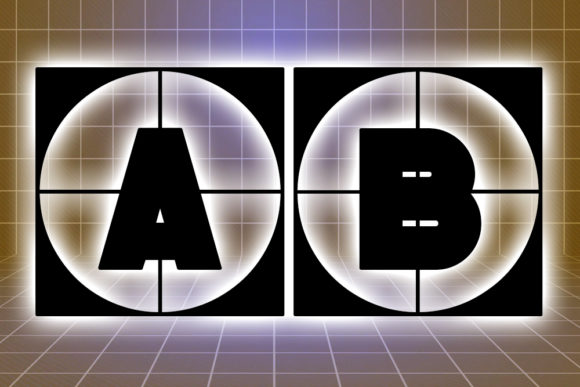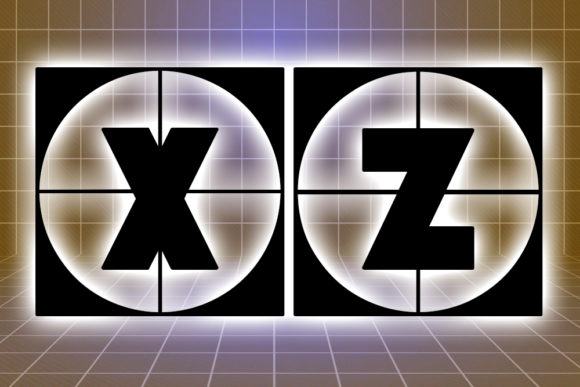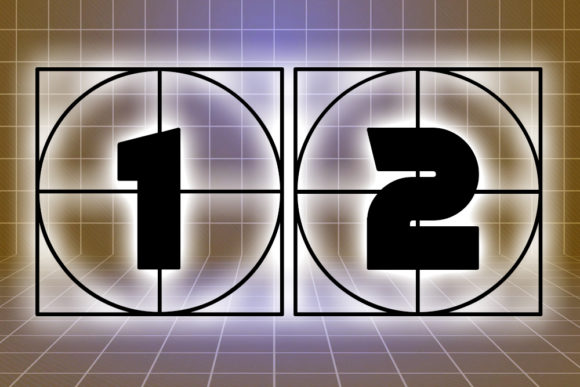
The Perfect Grid: Unleashing Creativity with Griddy Blocks Font
Have you ever stared at a blank page, waiting for that spark of creativity to strike? For many designers, it’s that moment of pure inspiration that sets their imagination ablaze. For us, it’s the thrill of experimenting with new fonts, colors, and layouts. And sometimes, it’s the simplest elements that make all the difference.
Enter Griddy Blocks Font, a stylish and modern typographic gem that brings a touch of sophistication to any design. This grid-based font is designed to elevate your print, t-shirt, or banner game, adding a unique visual appeal that’s sure to turn heads. As a valuable resource for designers, Griddy Blocks Font offers endless possibilities for creative expression, allowing you to craft distinctive and engaging visuals that leave a lasting impression.
Griddy Blocks Font Key Features
- Unique Characteristic: Griddy Blocks Font is a geometric sans-serif font with a unique grid-based design, making it ideal for digital displays and visualizations.
Griddy Blocks Font Review
As a designer, I’ve had the chance to work with the Griddy Blocks Font, and here’s my honest review.
- The font’s unique block-like design is visually striking and adds a modern touch to any design project.
- It’s highly customizable, allowing you to adjust the block sizes, colors, and spacing to fit your specific needs.
- The font is suitable for a wide range of applications, from digital interfaces to print materials.
- The font’s complexity can make it challenging to work with, especially for designers who are new to font customization.
- The block design can be overwhelming in certain contexts, making it difficult to read or understand the content.
- The font’s versatility comes at the cost of consistency, as different block sizes and colors can create a disjointed look.
Overall, I think the Griddy Blocks Font is a solid choice for designers who want to add a modern twist to their projects. While it has some limitations, its unique design and customization options make it a valuable tool in the right situations.
Tips for Getting the Most Out of Griddy Blocks Font
Here are some tips to help you get the most out of Griddy Blocks Font:
- Use it to create eye-catching headlines and titles.
- Experiment with different font sizes and colors to add visual interest.
- Combine it with other fonts to create a unique and modern look.
Here are some common use cases for Griddy Blocks Font:
- Marketing materials, such as brochures and flyers.
- Social media graphics and posts.
- Branding and identity design.